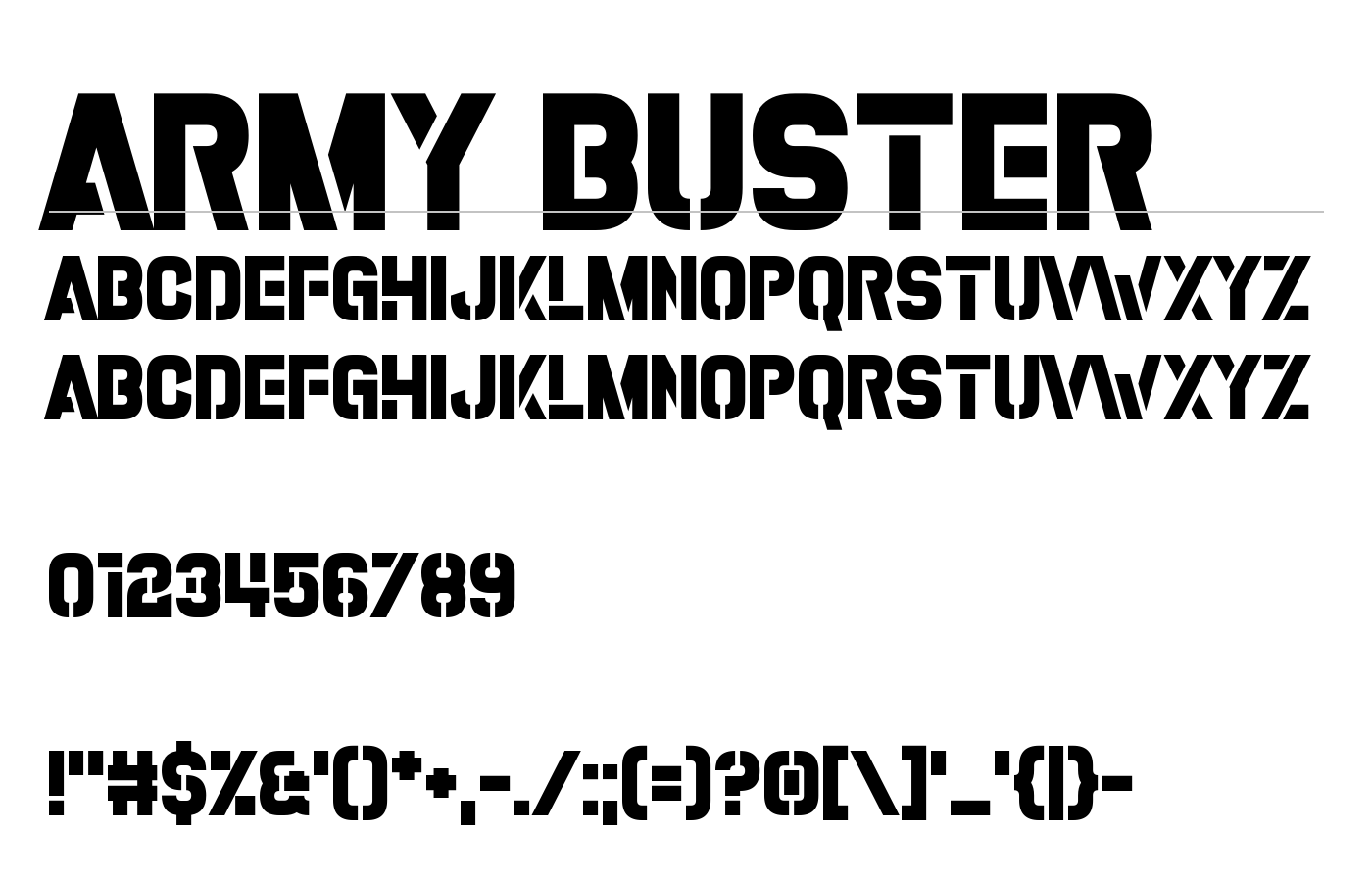
Army Buster is a bold, condensed sans serif font with a strong military-inspired stencil design, featuring high contrast between solid forms and sharp cut-out breaks. Its tall, geometric letterforms convey power and impact, making it ideal for headlines, posters, and branding where a rugged and commanding aesthetic is needed. This font works perfectly for projects that want to evoke strength, authority, and a vintage tactical feel.
Army Buster Font